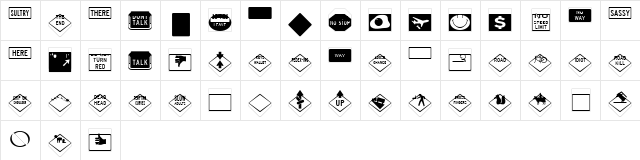
InterstatePi Regular
Design Context for InterstatePi
InterstatePi is a composed and adaptable typeface that performs quietly and consistently across a wide range of design contexts.